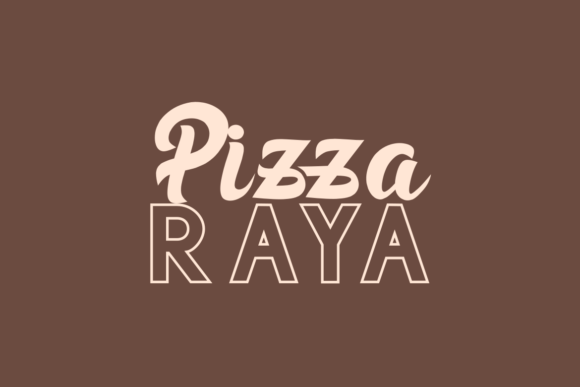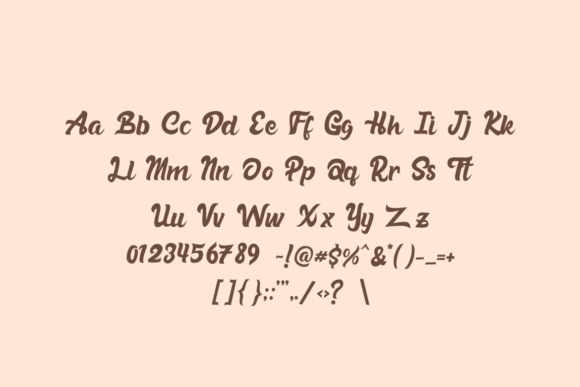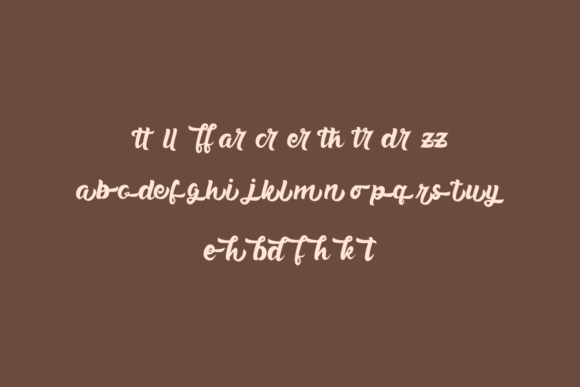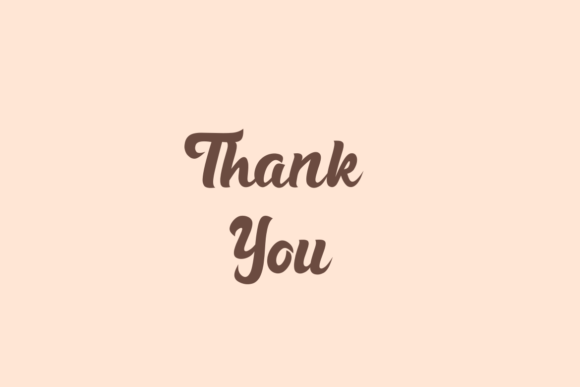
Habisa Font
About Habisa Font
Habisa is a modern handwritten font, designed with the help of a brush pen. This font is PUA encoded which means you can access all of the glyphs and swashes with ease! It features a varying baseline, smooth lines, gorgeous glyphs and stunning alternates.
Fall in love with its incredibly flowing style and use it to create gorgeous wedding invitations, beautiful stationary art, eye-catching social media posts, and much more!